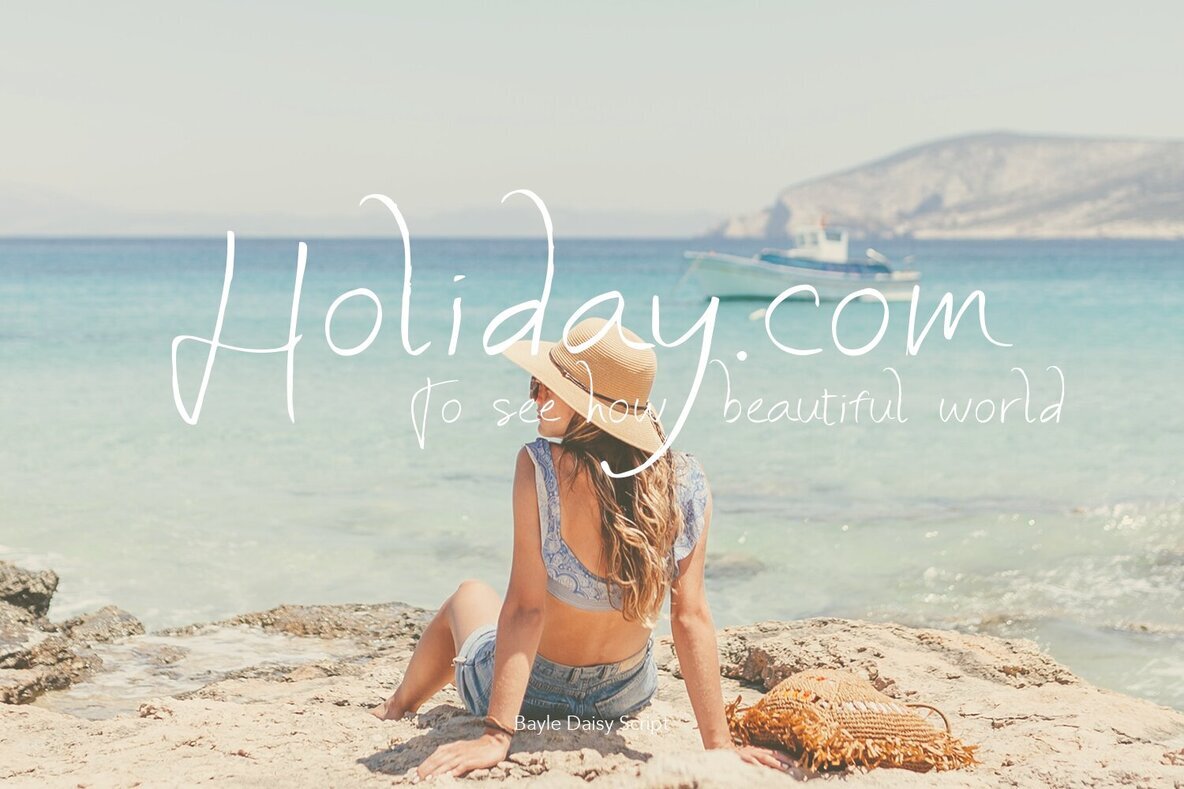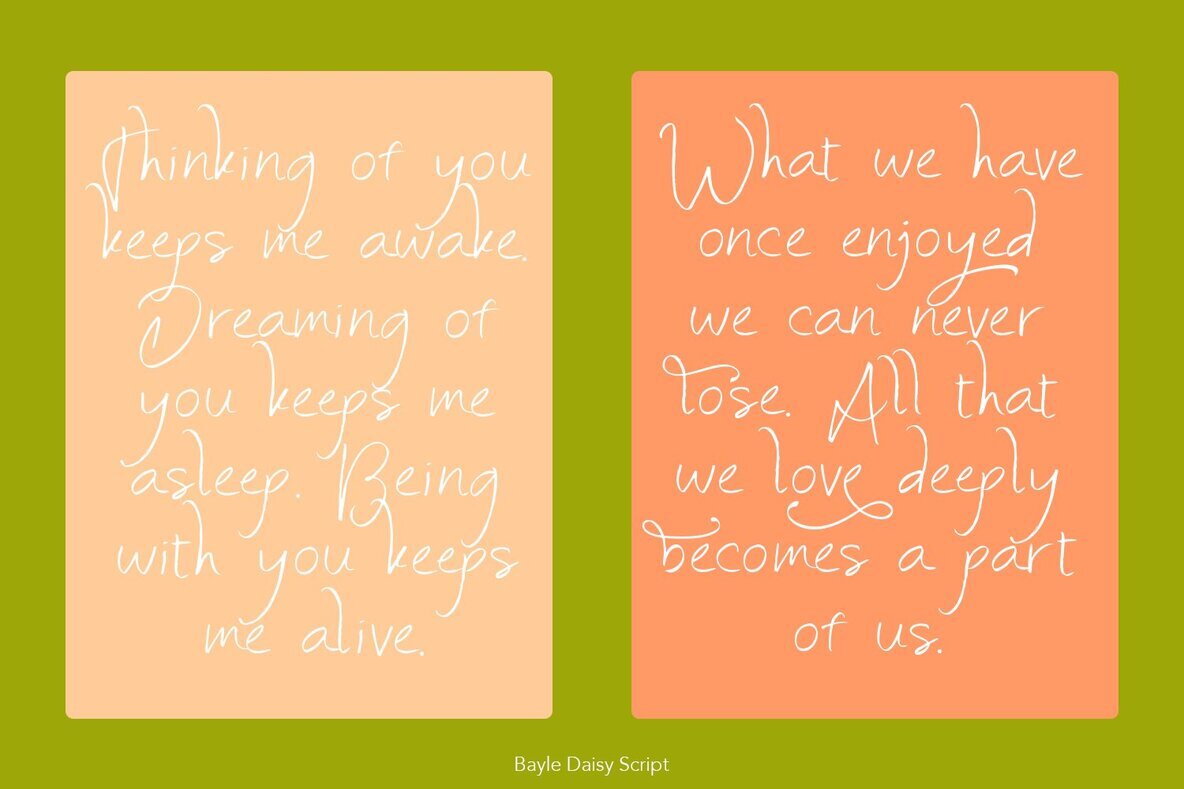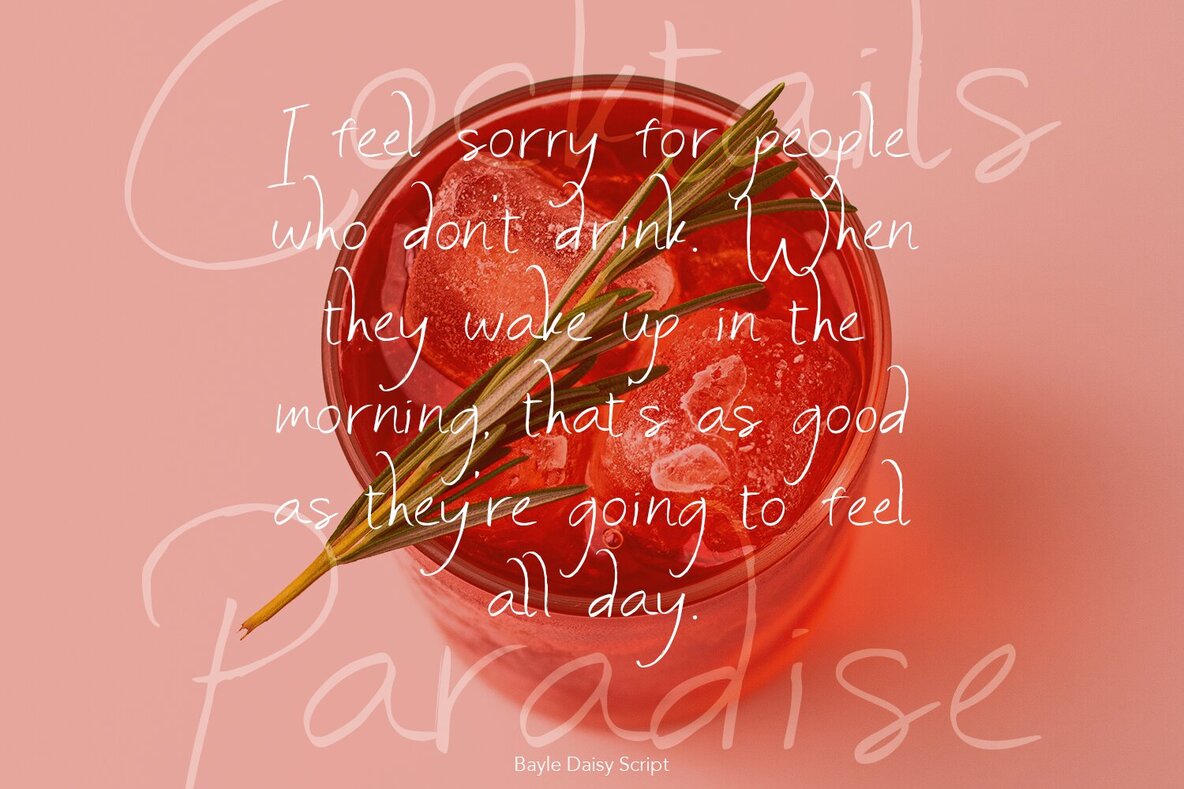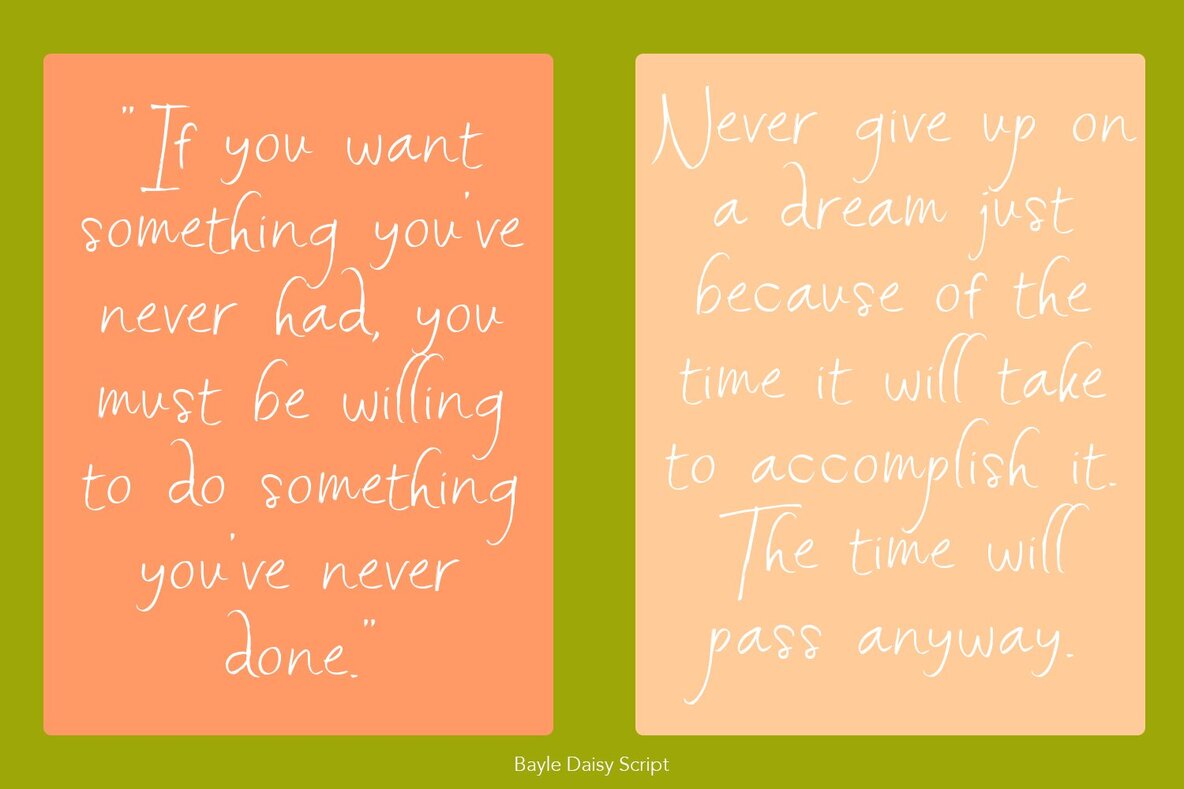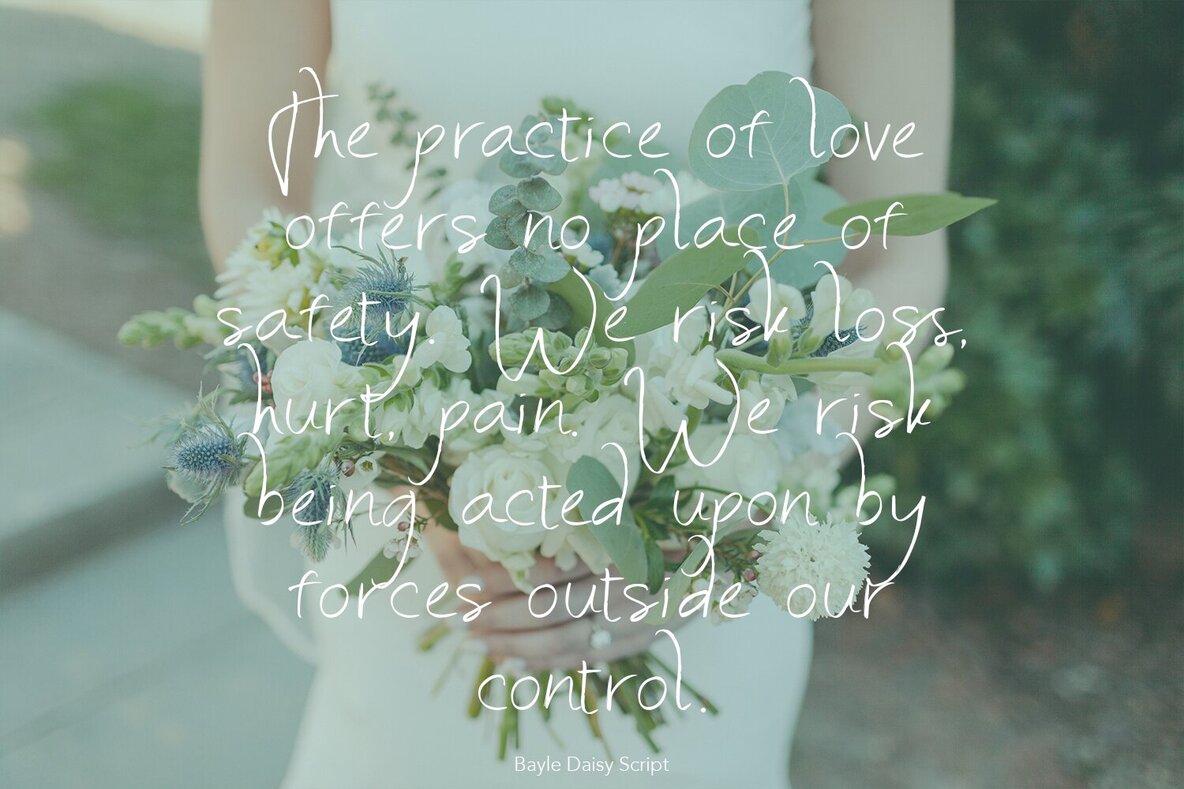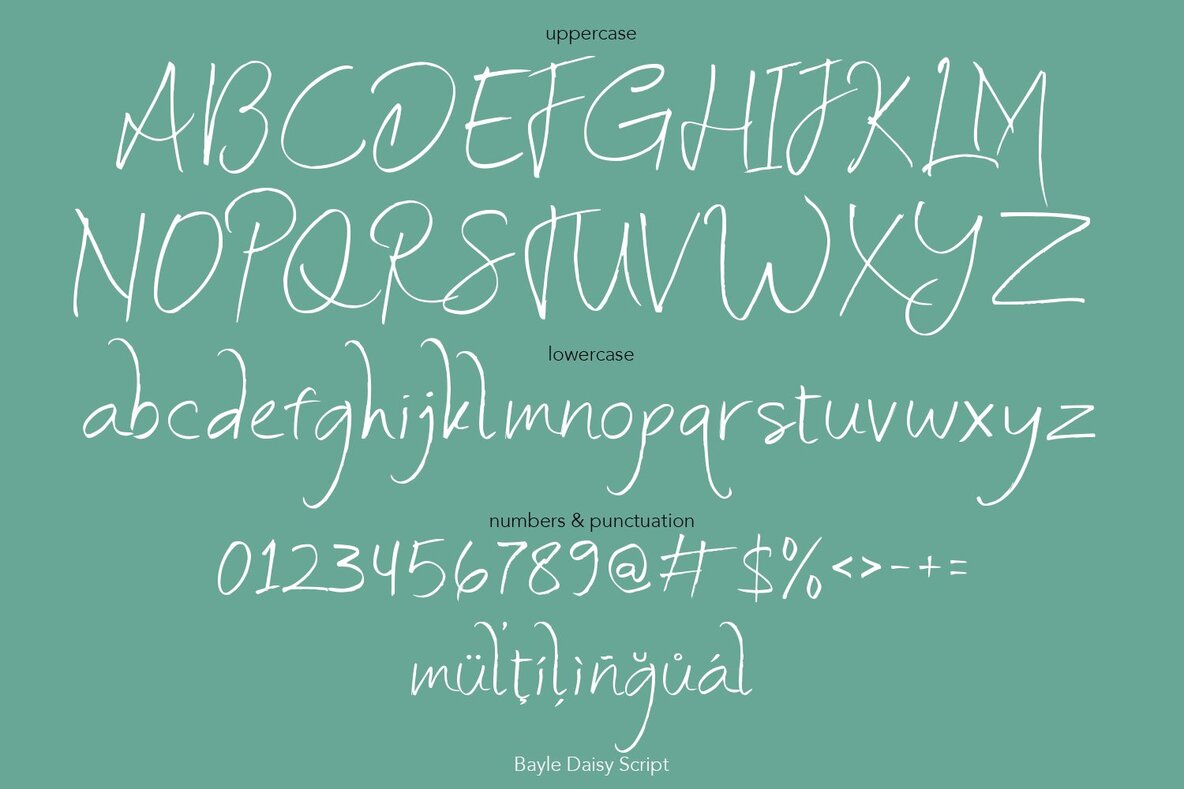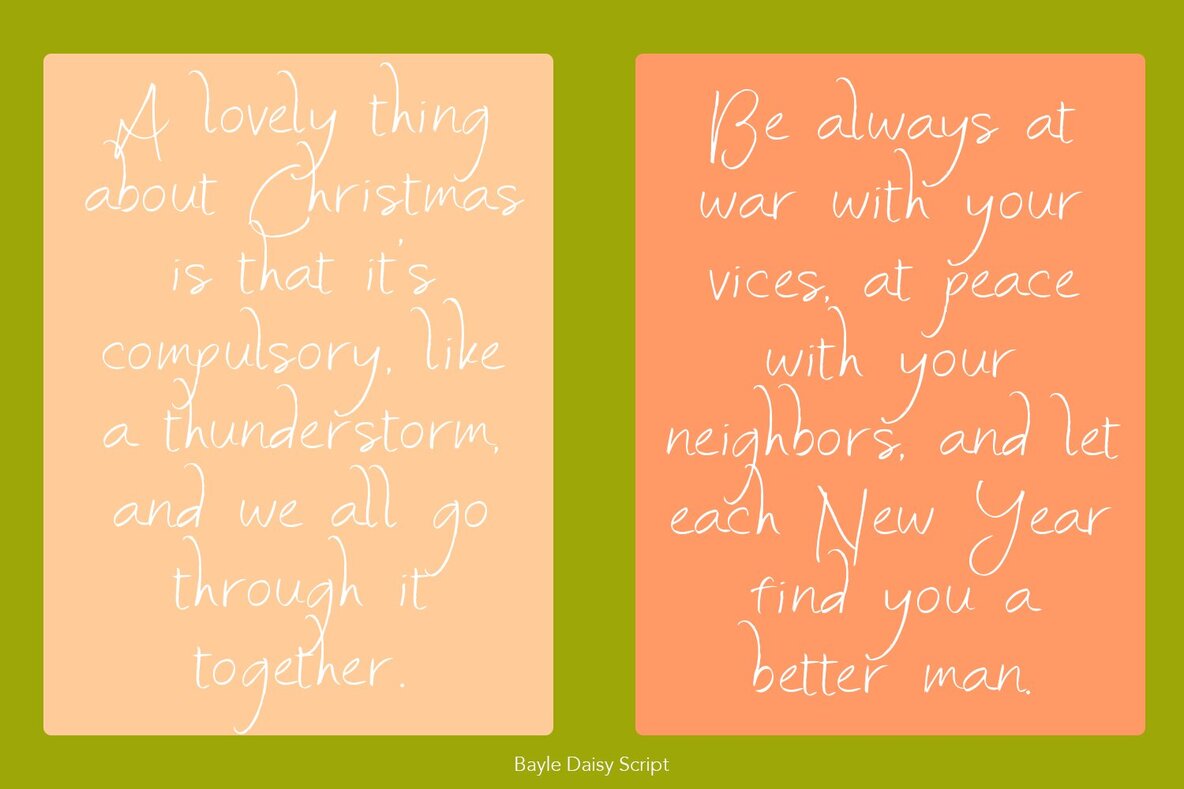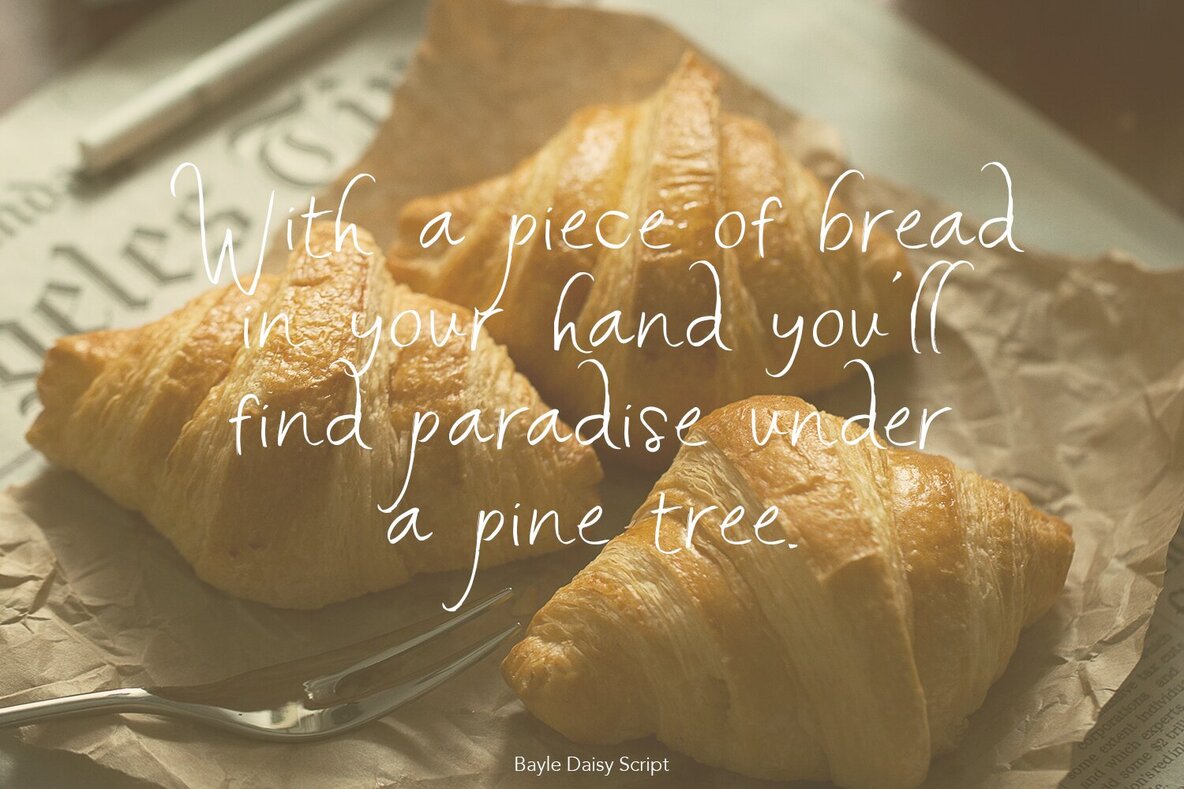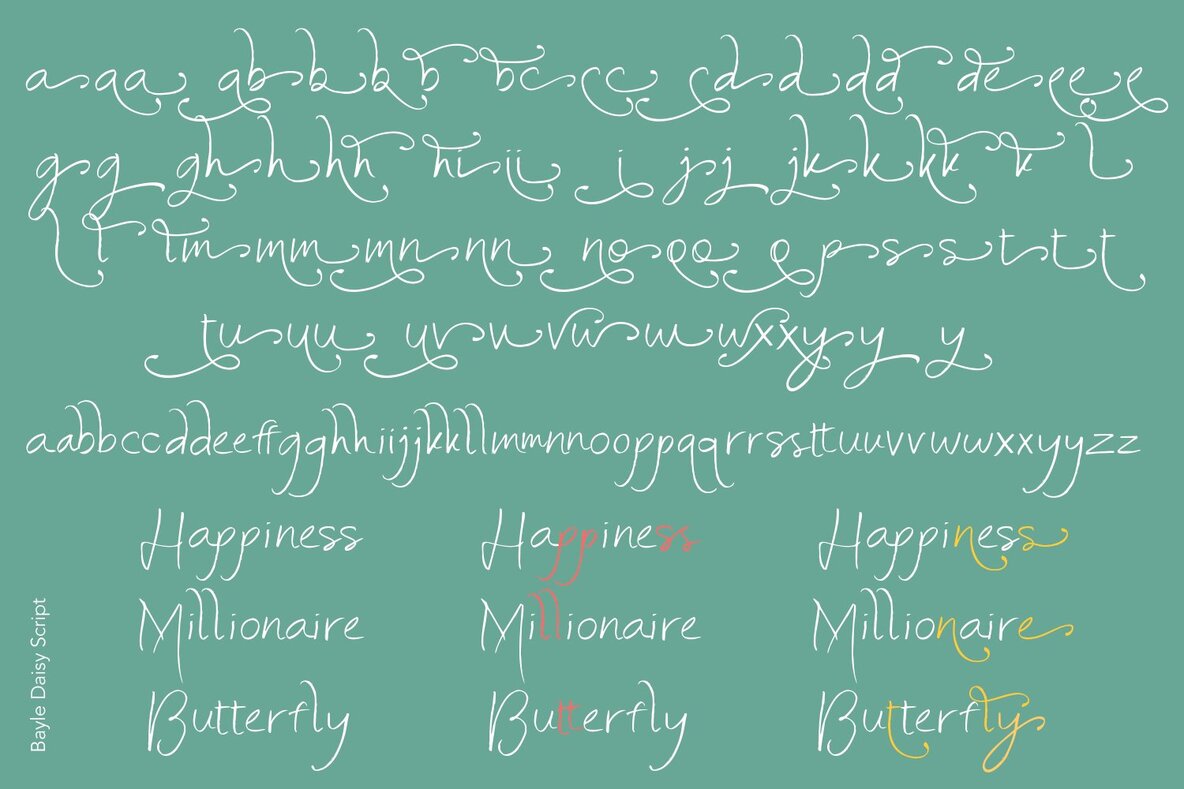
Bayle Daisy Font
Bayle Daisy Regular
Bayle Daisy is a brush handwritten font that brings an incredible impression to your design projects. This font includes numerous ligatures and alternatives, ensuring a realistic, handmade, handwritten appearance.Bayle Daisy: Authentic Brush Handwritten Font